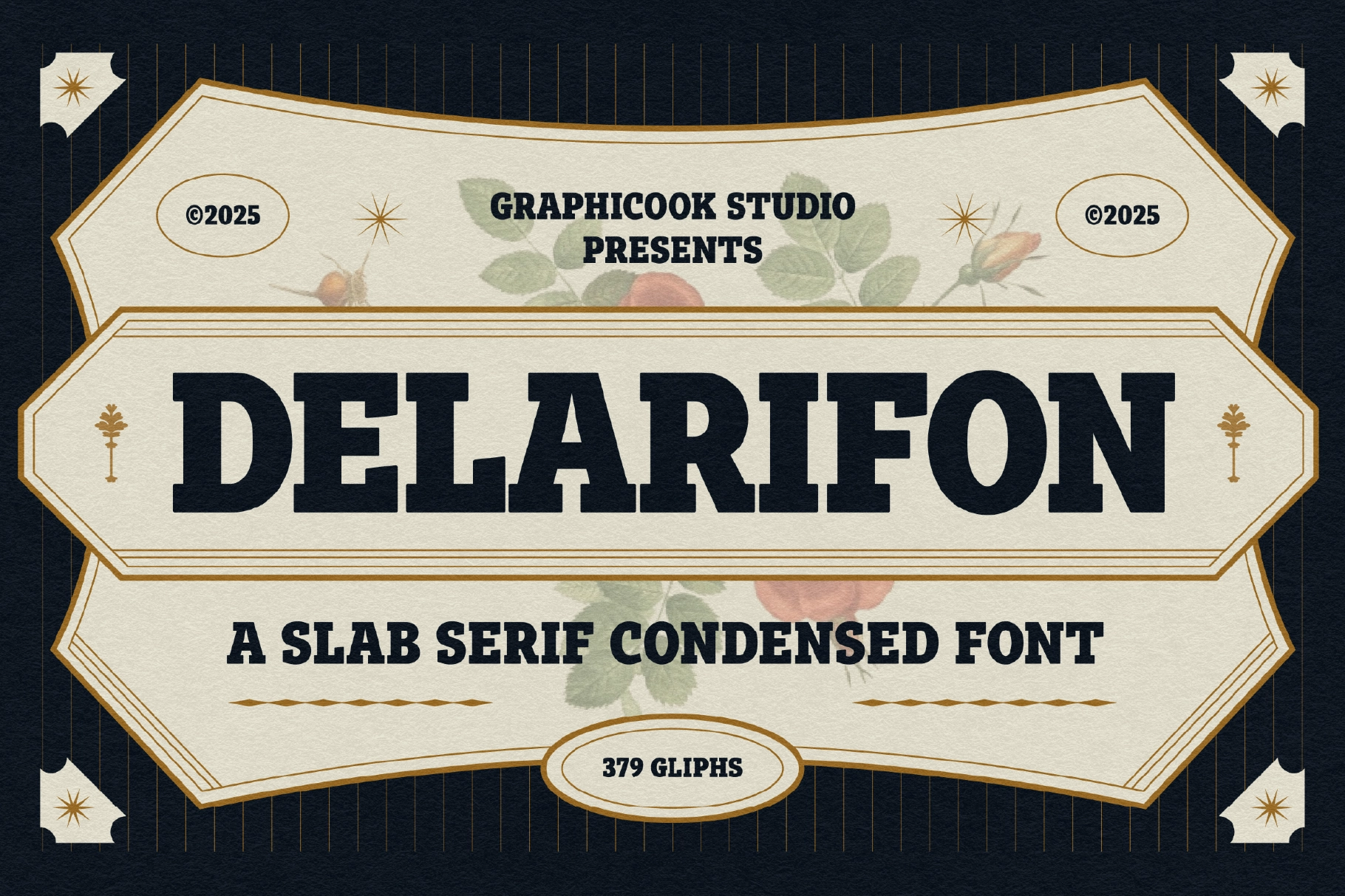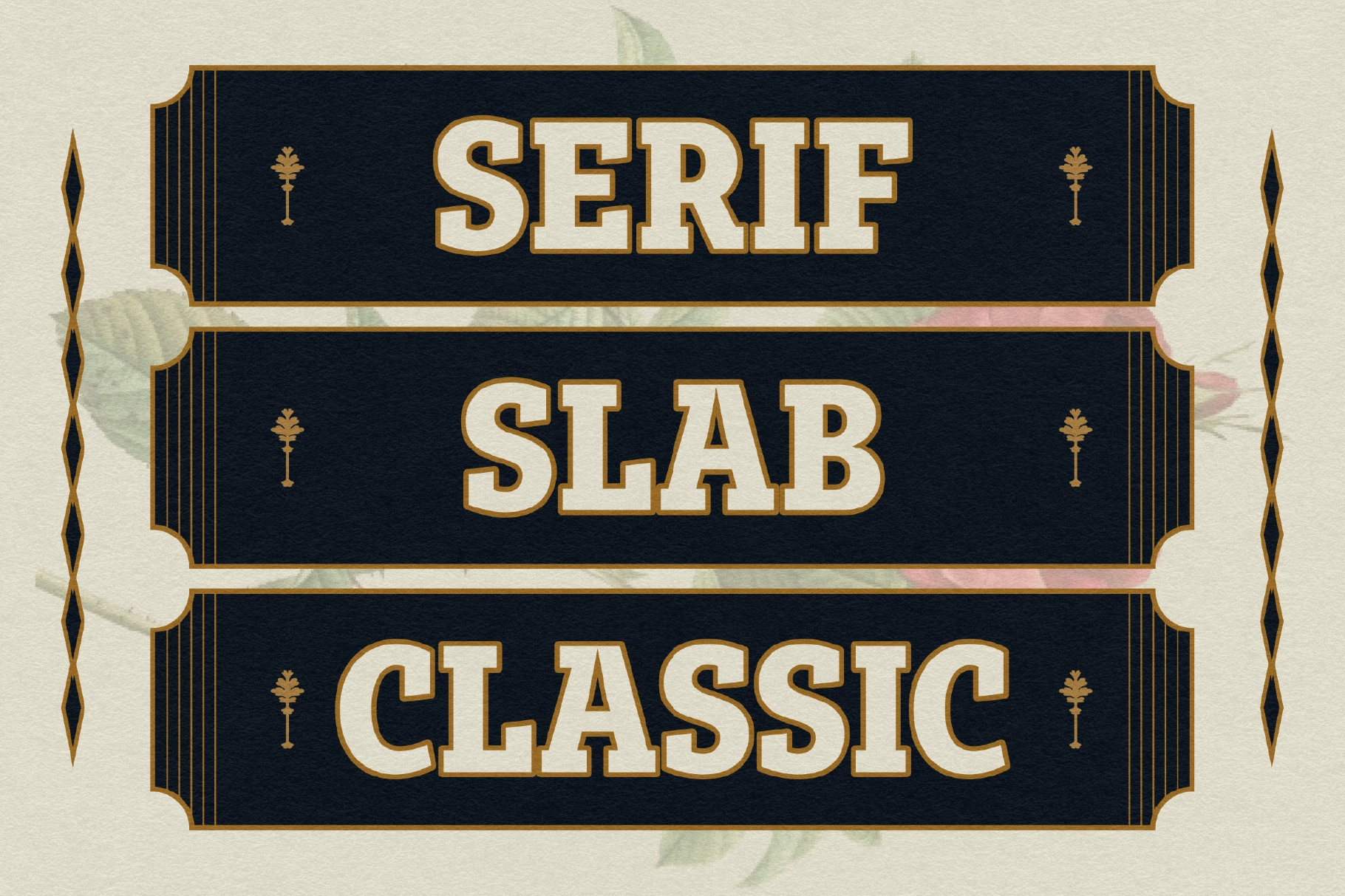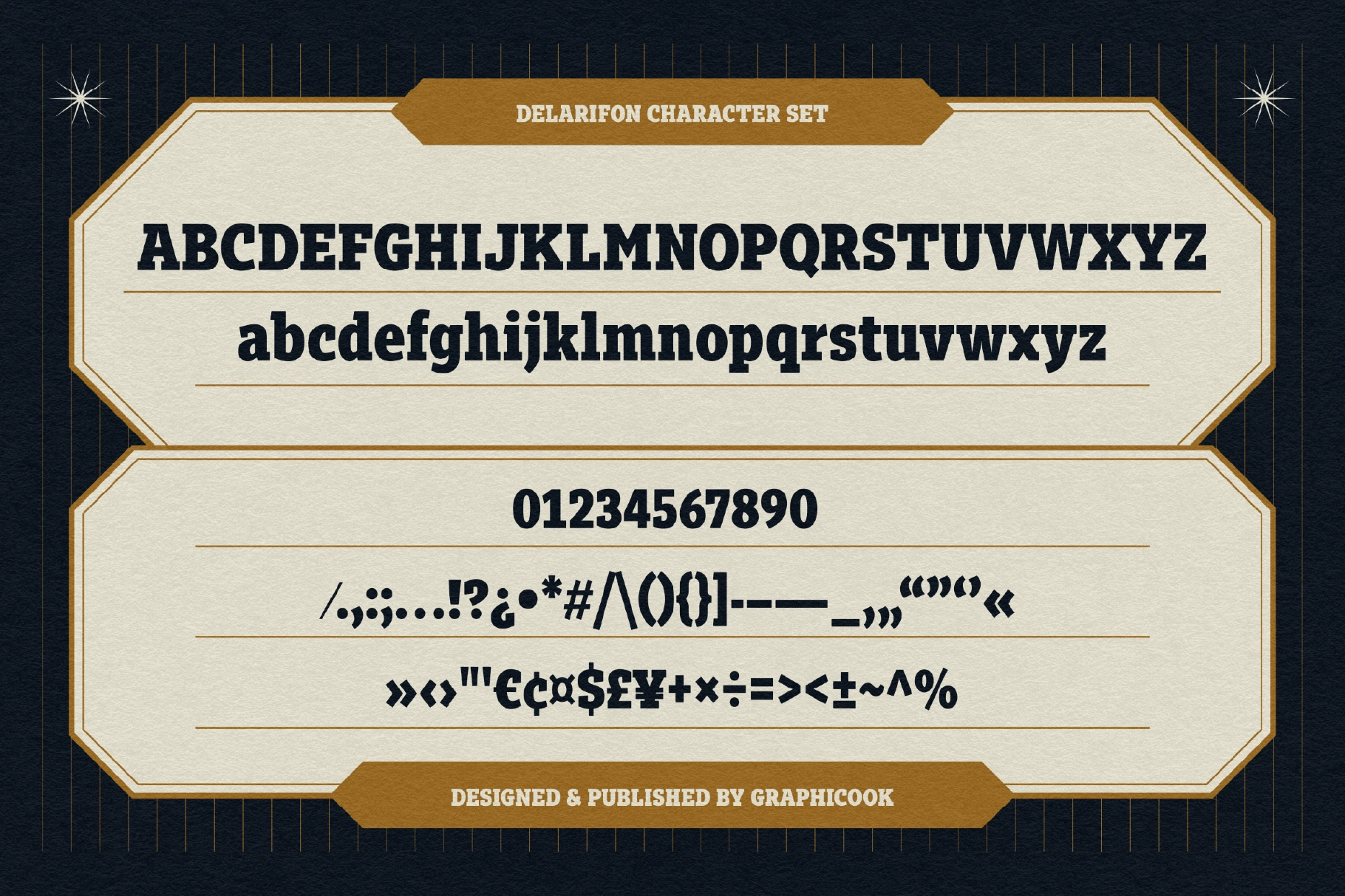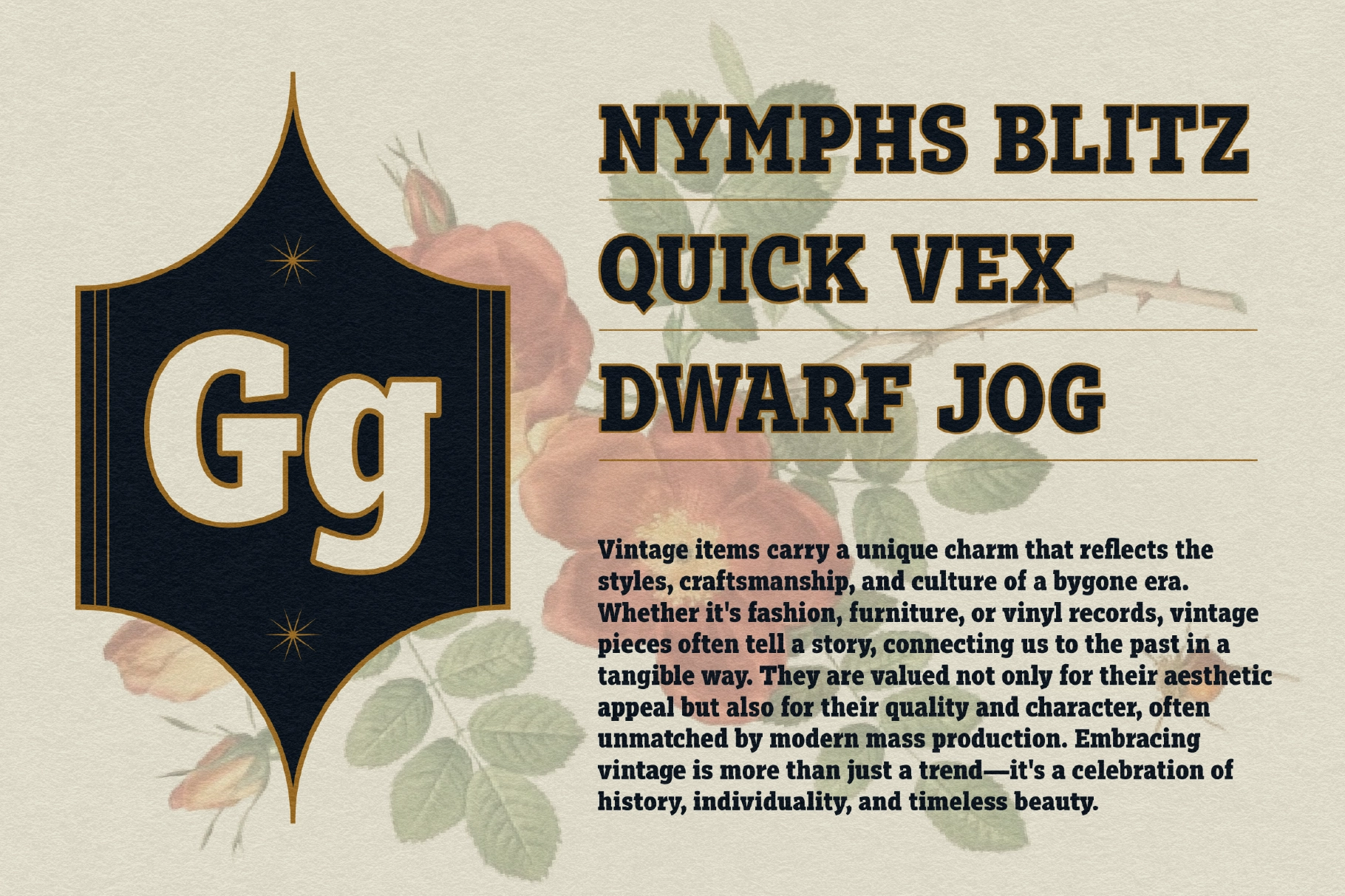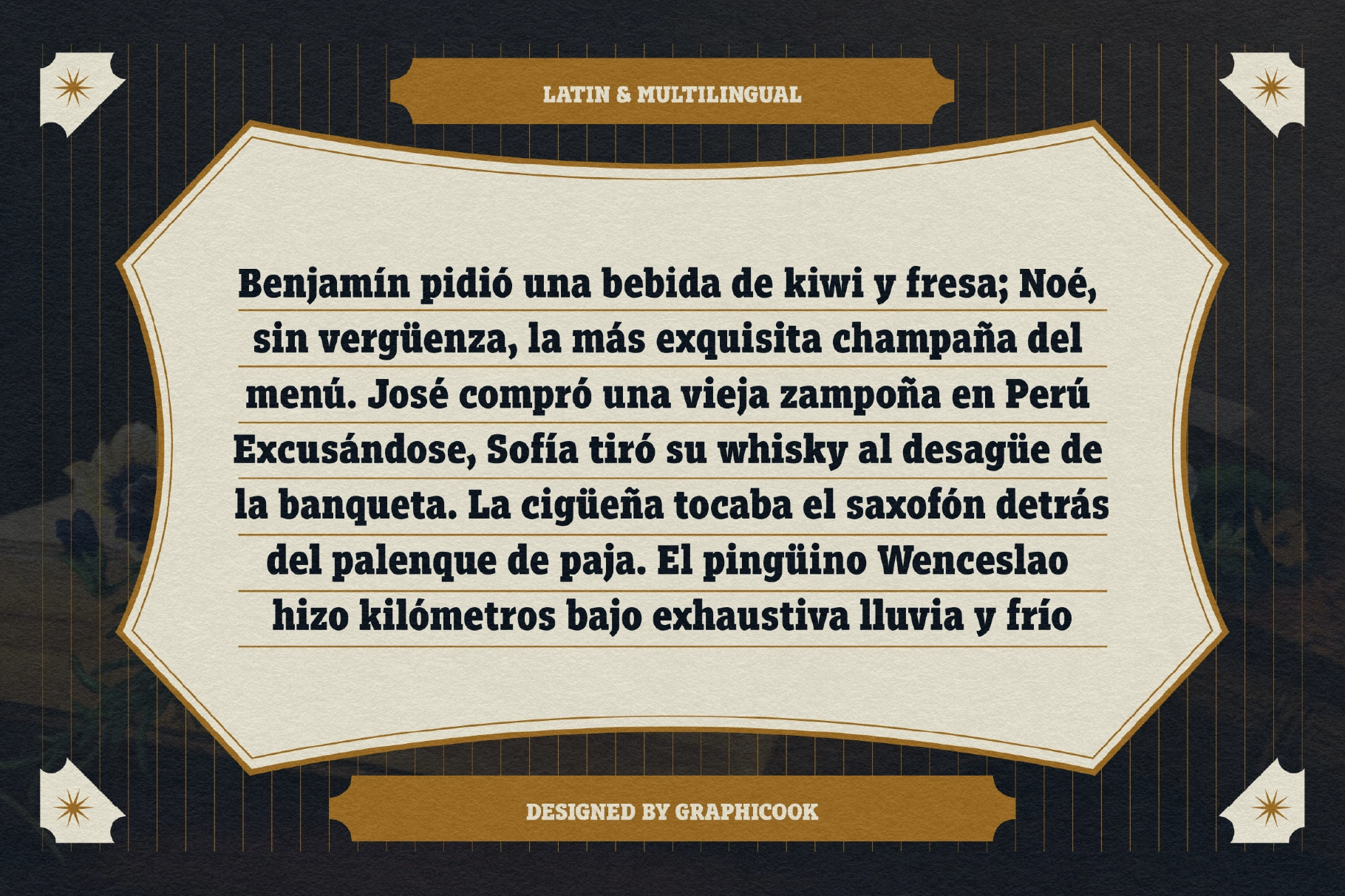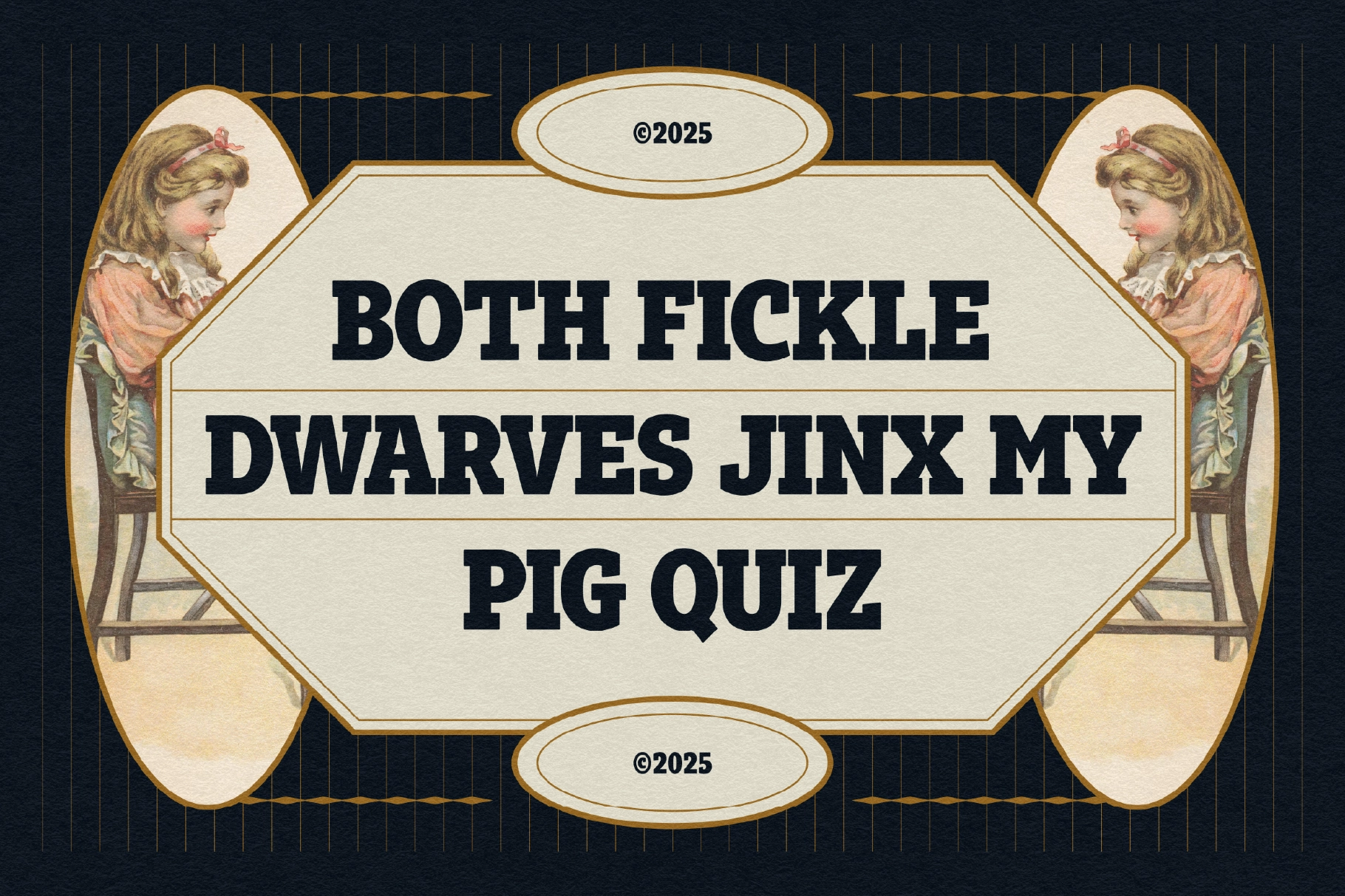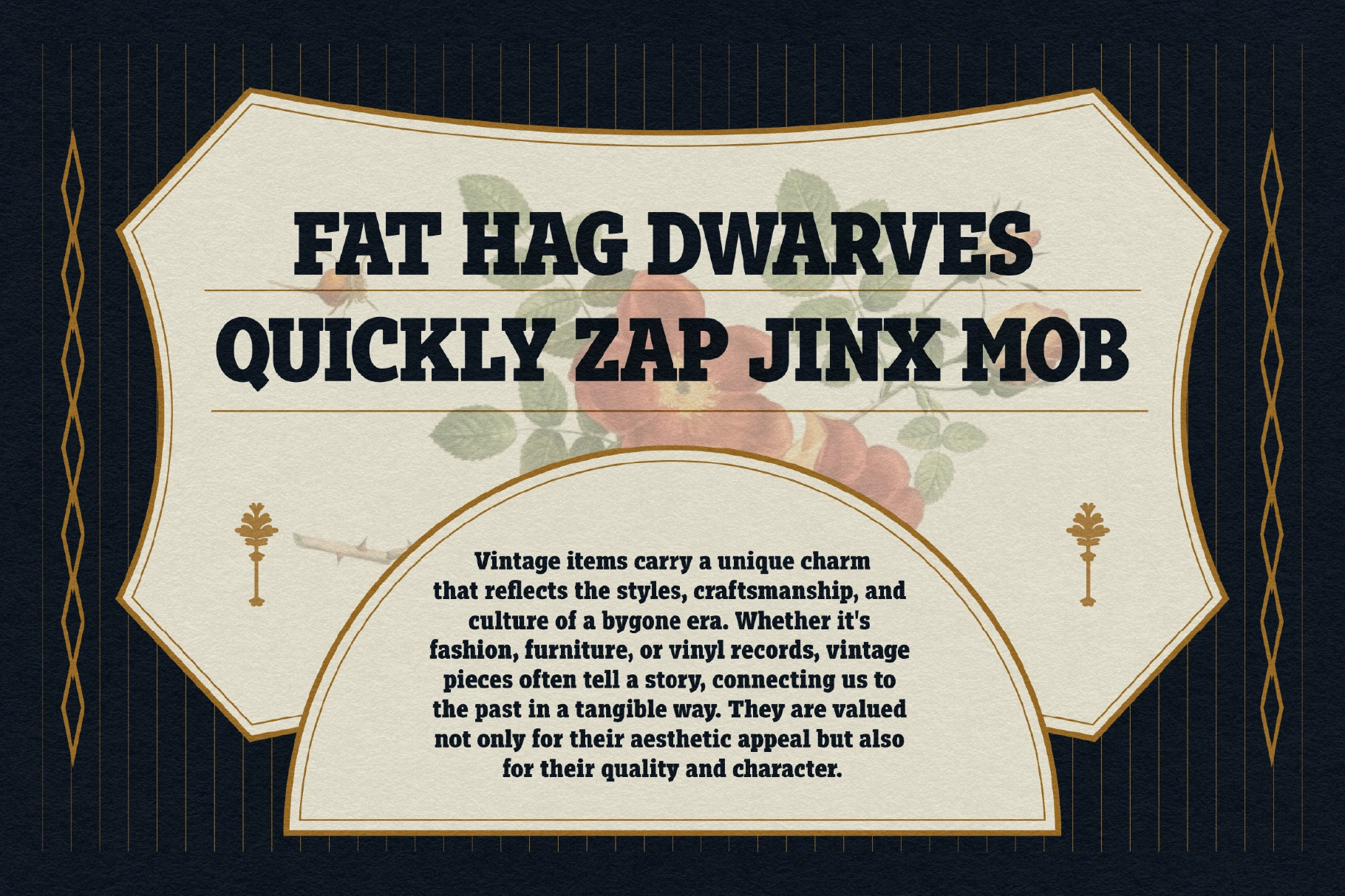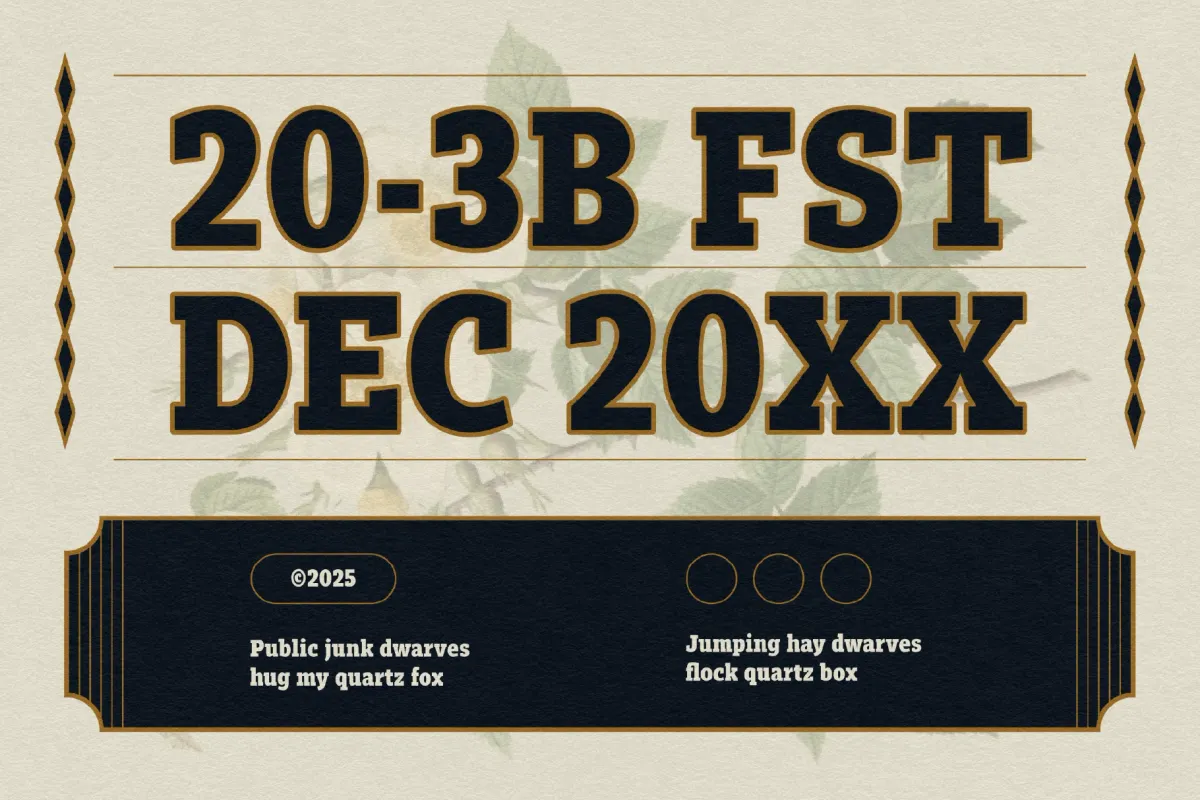
Delarifon
Delarifon is a bold slab serif font wrapped in a vintage style. It’s well-suited for vintage magazine layouts, classic movie posters, or heritage product branding.